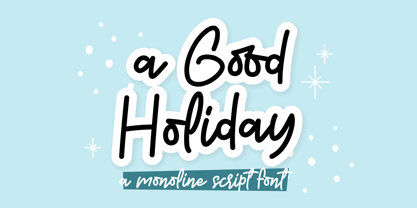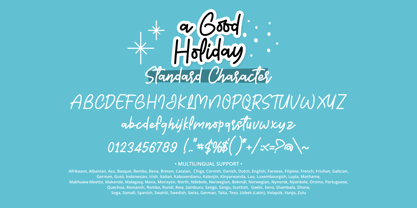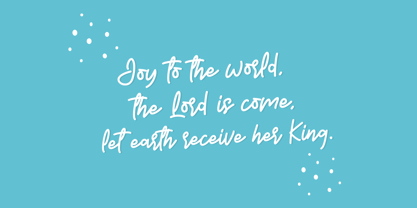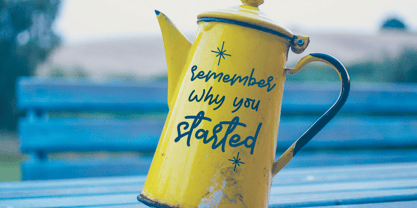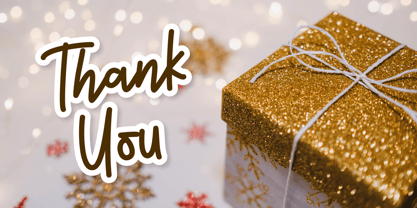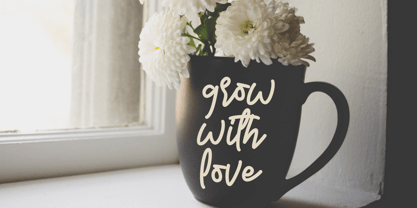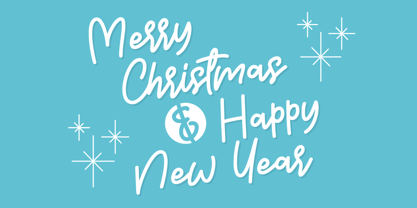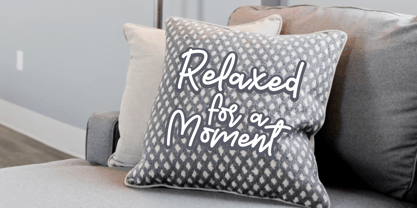
Good Holiday
von Mabhal Studio
Die Schriftfamilie Good Holiday wurde von Abdullah Mabhal entworfen und von Mabhal Studio veröffentlicht. Good Holiday enthält 1 Stile. Mehr über diese Familie
Good Holiday is a simple, delicate, and charming script font designed to bring warmth and elegance to your creative projects. With its smooth handwritten style and natural flow, this font adds a personal touch to any design.
It is perfect for craft projects, Christmas decorations, farmhouse signs, greeting cards, posters, t-shirts, invitations, gift tags, social media graphics, and much more. Whether you're creating festive holiday designs or everyday handmade products, A Good Holiday helps your work feel friendly, stylish, and memorable.
Enjoy the beauty of this versatile script font and explore its endless creative possibilities.